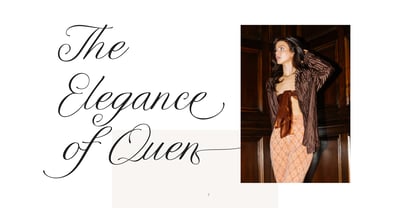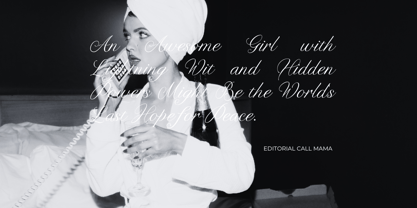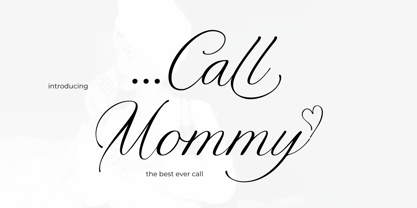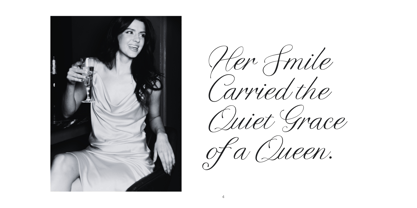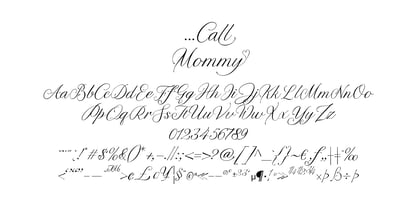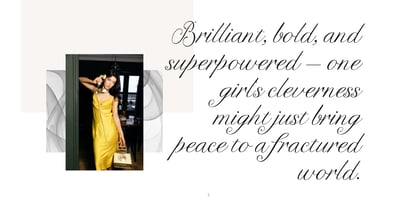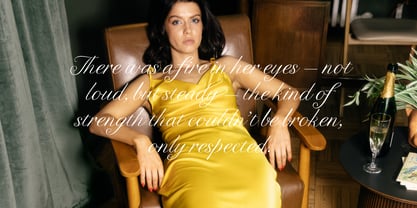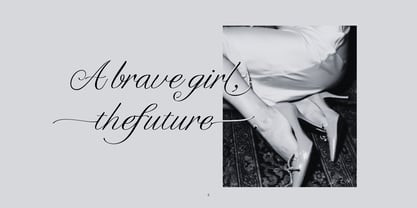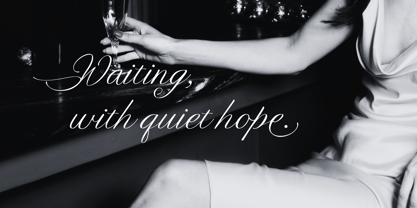
Call Mommy
by Gatype
The Call Mommy Font Family was designed by khaidir and published by Gatype. Call Mommy contains 1 styles. More about this family
Call Mommy – Elegant Wedding Calligraphy Font
"Call Mommy" is a graceful and romantic calligraphy font with a refined, luxurious touch. It's the perfect choice for wedding or engagement themes — especially those with an upscale and elegant feel.
The Call Mommy Font features an extensive set of ligatures and alternates, making it highly versatile for various creative projects. Ideal for logos, quotes, badges, packaging, headlines, posters, apparel, greeting cards, wedding invitations, and more.